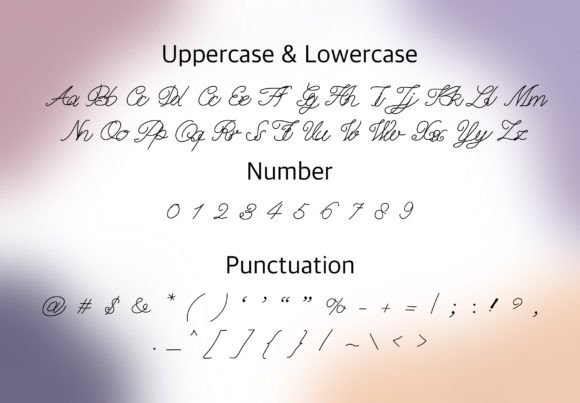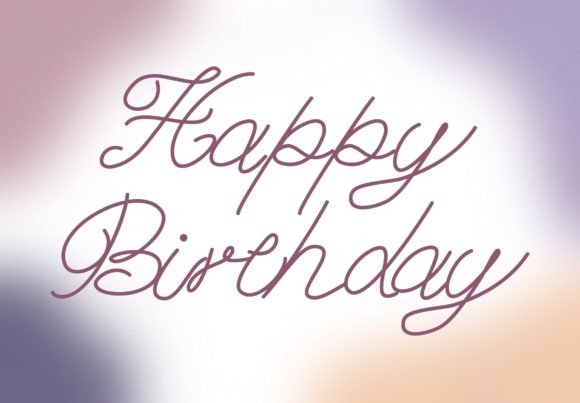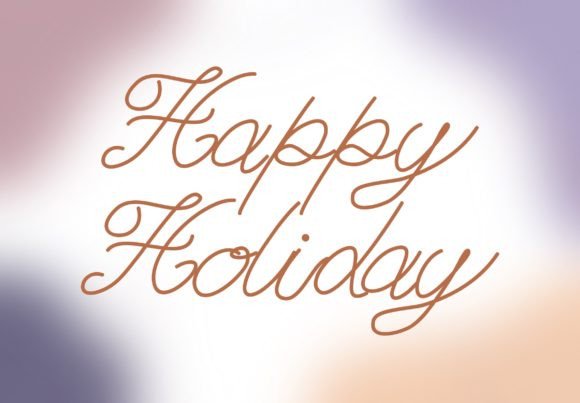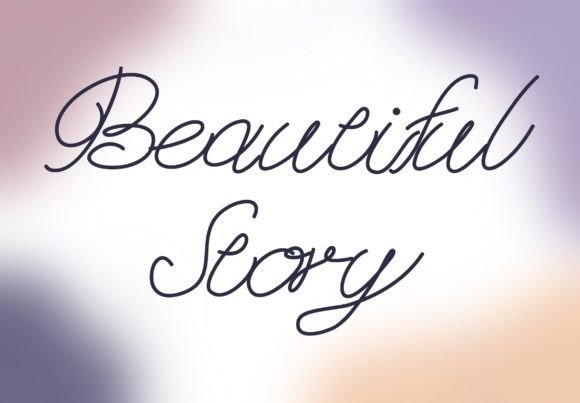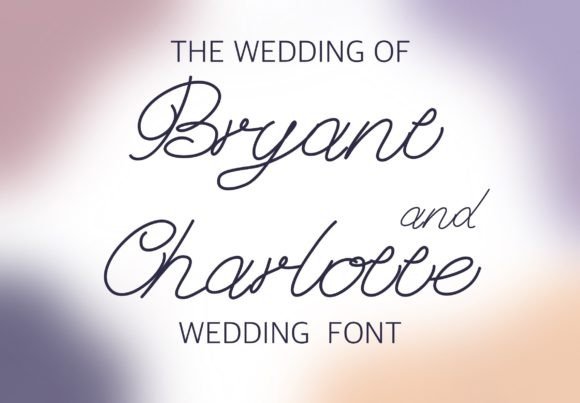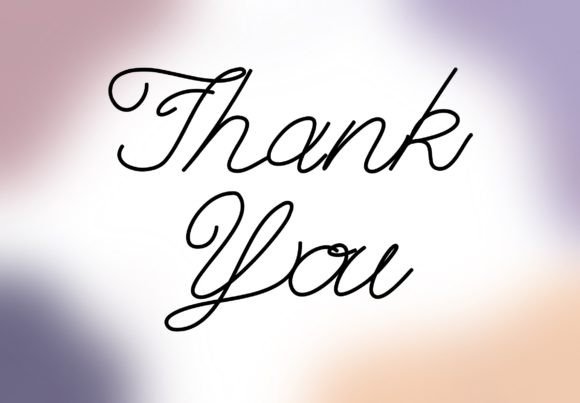
Elevate Your Designs with Abstract Font: A Lovely Handwritten Style
Are you looking for a font that can add a touch of elegance and sophistication to your designs? Look no further than Abstract Font, a beautiful handwritten font perfect for a wide range of creative projects. In this article, we’ll explore the features and benefits of Abstract Font, and show you how to make the most of this versatile typeface.
What is Abstract Font?
Abstract Font is a lovely handwritten font designed to bring a personal touch to your designs. Its elegant and flowing script is perfect for creating beautiful wedding invitations, Christmas projects, social media posts, logos, and more. With its unique and distinctive style, Abstract Font is sure to make your designs stand out from the crowd.
Features of Abstract Font
So, what makes Abstract Font so special? Here are just a few of its key features:
- Handwritten style: Abstract Font has a beautiful, handwritten feel that’s perfect for creating personal and inviting designs.
- Elegant and sophisticated: With its flowing script and elegant lines, Abstract Font is perfect for creating designs that are both stylish and refined.
- Versatile: Abstract Font can be used for a wide range of projects, from wedding invitations and Christmas cards to social media posts and product packaging.
- Easy to read: Despite its elegant style, Abstract Font is easy to read and understand, making it perfect for designs that need to communicate a message.
Uses for Abstract Font
So, what can you use Abstract Font for? The possibilities are endless! Here are just a few ideas to get you started:
- Wedding invitations: Create beautiful, elegant wedding invitations that set the tone for a special day.
- Christmas projects: Use Abstract Font to create festive Christmas cards, decorations, and other holiday projects.
- Social media posts: Add a touch of elegance to your social media posts and make them stand out from the crowd.
- Logos and branding: Use Abstract Font to create a unique and memorable logo for your business or brand.
- T-shirts and apparel: Create stylish and eye-catching T-shirts and other apparel with Abstract Font.
- Posters and flyers: Use Abstract Font to create eye-catching posters and flyers that grab attention.
- Product packaging: Add a touch of elegance to your product packaging and make it stand out on store shelves.
Tips for Using Abstract Font
Here are a few tips for getting the most out of Abstract Font:
- Use it sparingly: Abstract Font is a beautiful font, but it can be overwhelming if used too much. Use it sparingly to add a touch of elegance to your designs.
- Experiment with colors: Abstract Font looks great in a variety of colors, so don’t be afraid to experiment and find the perfect color for your design.
- Pair it with other fonts: Abstract Font can be paired with other fonts to create a unique and interesting design. Try pairing it with a bold font for a striking contrast.
| Font Name | Abstract Font |
| Author | KisbyArt |
Abstract Font is a beautiful handwritten font that’s perfect for adding a touch of elegance and sophistication to your designs. With its elegant style, versatility, and ease of use, Abstract Font is a must-have for designers and crafters. Whether you’re creating wedding invitations, Christmas projects, social media posts, or product packaging, Abstract Font is sure to take your designs to the next level.